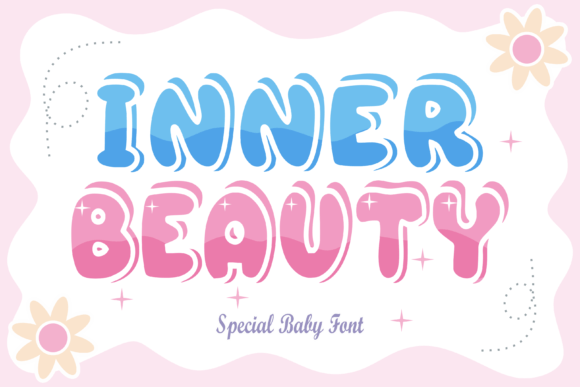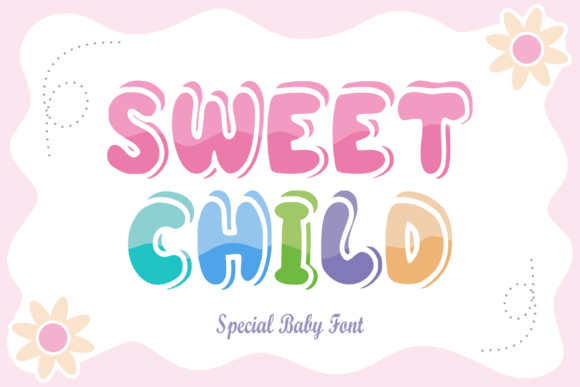
Baby Toys Font: Add a Playful Touch to Your Designs
Are you looking for a font that can add a dash of fun and playfulness to your designs? Look no further than the Baby Toys font! This cheerful display font is perfect for designers and crafters who want to create lively and energetic designs that stand out from the crowd. In this article, we’ll take a closer look at the Baby Toys font, its features, and how you can use it to take your designs to the next level.
What is Baby Toys Font?
Baby Toys font is a fun and cheerful display font that features bold, rounded letters with an energetic and baby-like style. The font is designed to evoke a sense of playfulness and confidence, making it perfect for designs that need to make a statement. Whether you’re working on a title, poster, or creative project, the Baby Toys font is sure to add a touch of whimsy and fun.
Key Features of Baby Toys Font
The Baby Toys font has several key features that make it stand out from other fonts. Some of its notable features include:
- Bold and rounded letters: The Baby Toys font features bold and rounded letters that give it a playful and energetic feel.
- Energetic and baby-like style: The font has an energetic and baby-like style that’s perfect for designs that need to feel lively and fun.
- Perfect for display text: The Baby Toys font is designed for display text, making it perfect for titles, posters, and other creative projects.
- Easy to read: Despite its playful style, the Baby Toys font is easy to read, making it perfect for designs that need to communicate a message.
How to Use Baby Toys Font in Your Designs
The Baby Toys font is a versatile font that can be used in a variety of designs. Here are some ideas for using the Baby Toys font in your designs:
- Children’s products: The Baby Toys font is perfect for designing children’s products, such as toys, books, and clothing.
- Posters and flyers: The font’s bold and playful style makes it perfect for posters and flyers that need to grab attention.
- Social media graphics: The Baby Toys font can add a touch of fun and playfulness to your social media graphics, making them stand out from the crowd.
- Crafting and DIY projects: The font’s playful style makes it perfect for crafting and DIY projects, such as handmade cards and gift tags.
Tips for Using Baby Toys Font Effectively
Here are some tips for using the Baby Toys font effectively in your designs:
- Use it sparingly: The Baby Toys font is a bold font, so it’s best to use it sparingly to avoid overwhelming your design.
- Pair it with a simple font: Pair the Baby Toys font with a simple font to create contrast and make your design more readable.
- Experiment with colors: The Baby Toys font looks great in bright and bold colors, so don’t be afraid to experiment with different colors.
The Baby Toys font is a fun and cheerful display font that’s perfect for designers and crafters who want to add a touch of playfulness to their designs. With its bold and rounded letters, energetic and baby-like style, and ease of use, the Baby Toys font is sure to become a favorite in your design arsenal. So why not give it a try and see how it can take your designs to the next level?